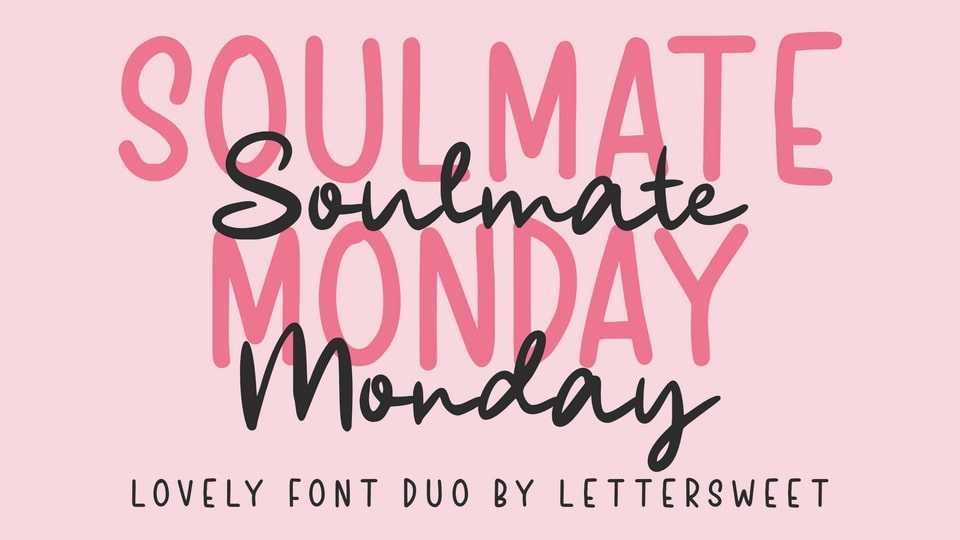
Download Soulmate Monday font, a lovely script and sans serif. Incredibly versatile, this font fits a wide pool of designs, elevating them to the highest levels.